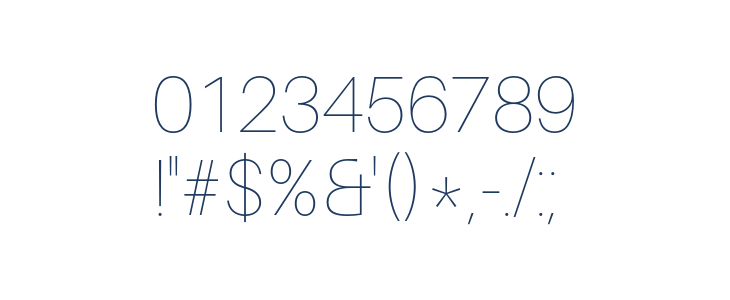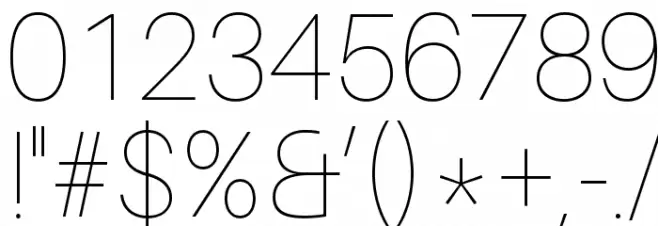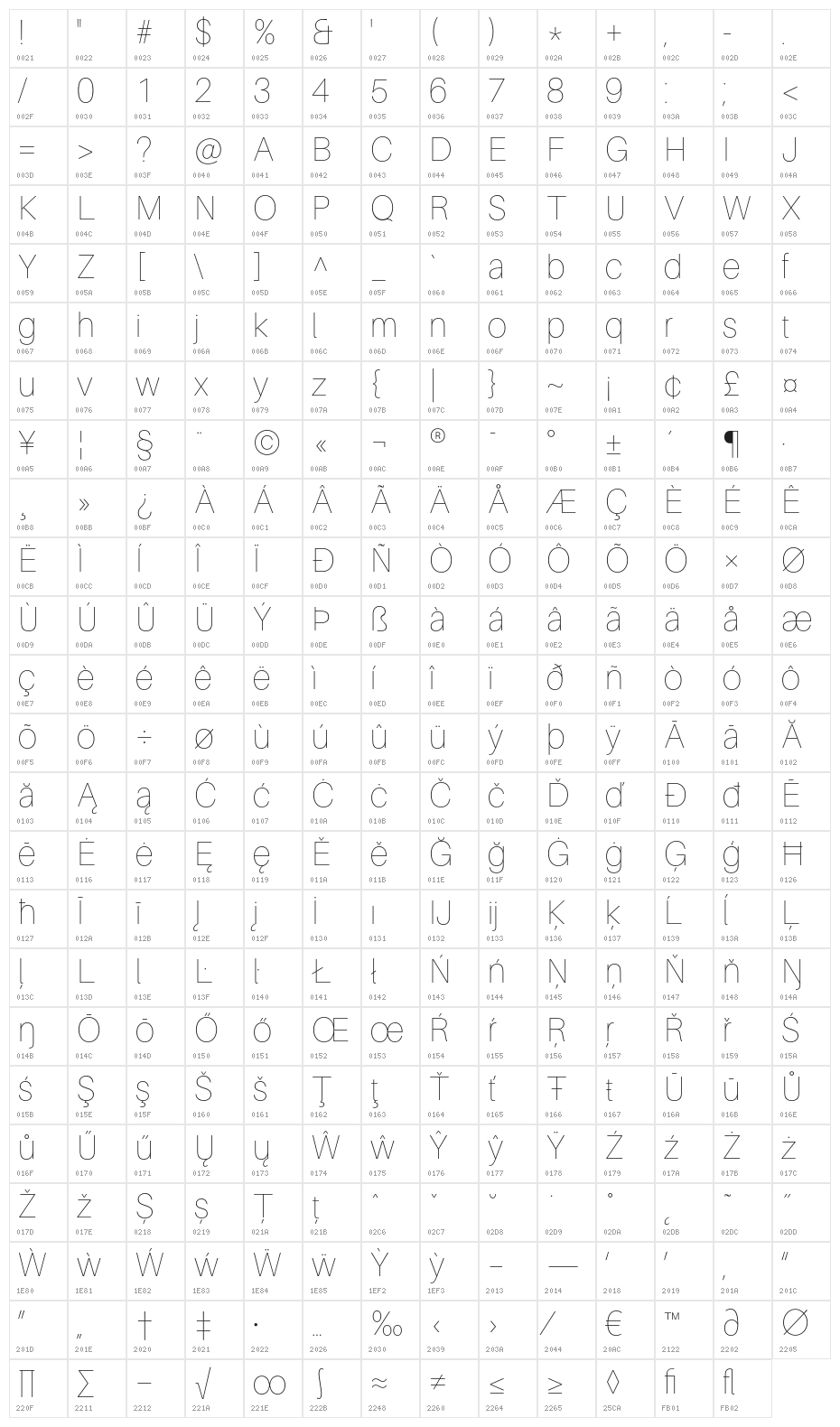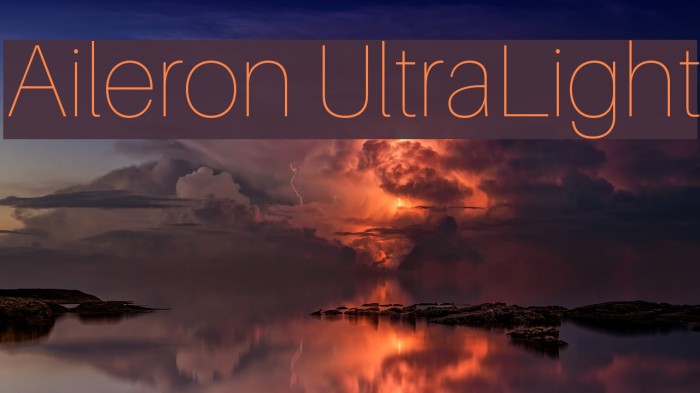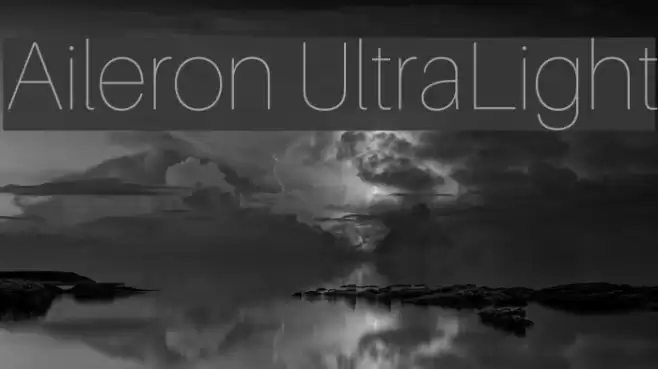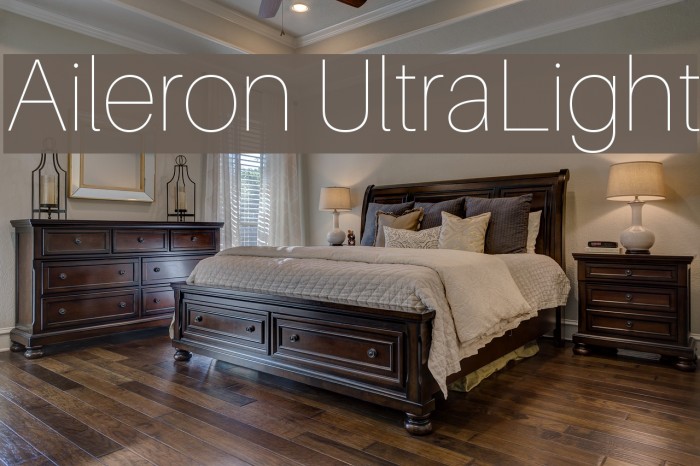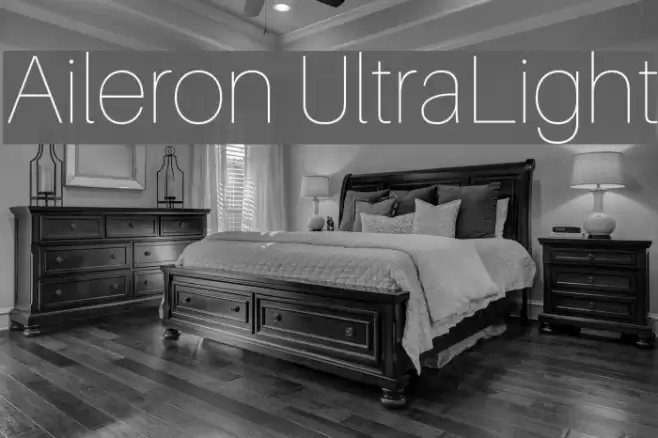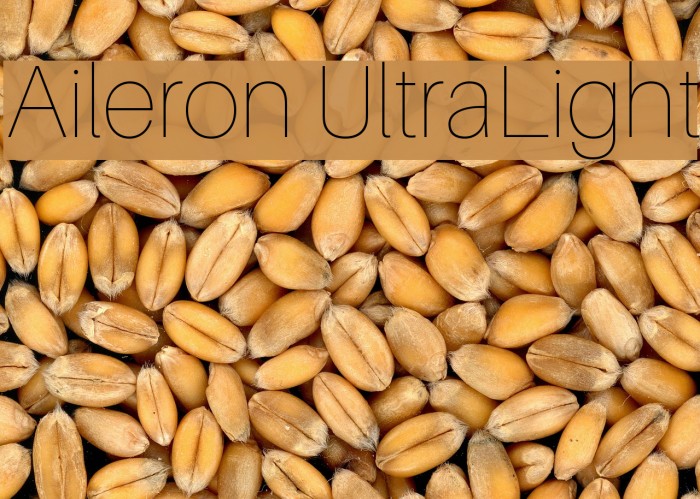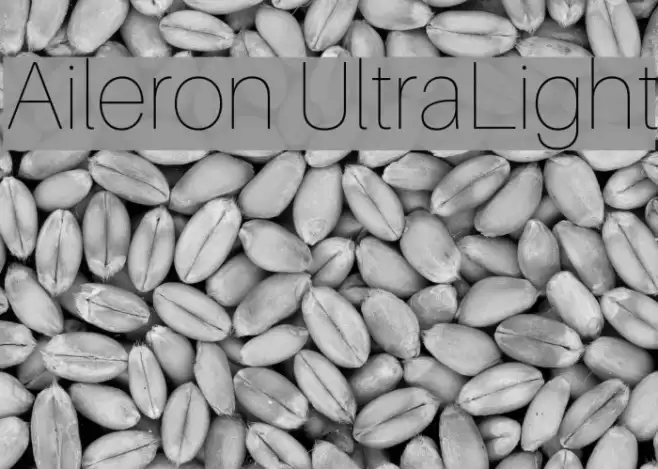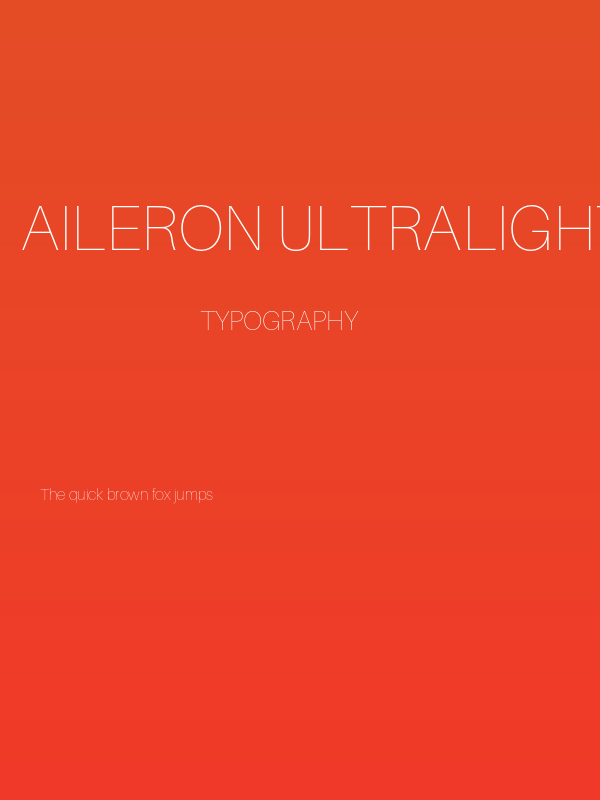
Aileron UltraLight Font
Aileron UltraLight Description
This font features a clean and minimalist design with ultra-light strokes, providing a modern and sophisticated appearance. The characters are evenly spaced, contributing to a balanced and harmonious look. The uppercase and lowercase letters maintain a consistent height, enhancing readability. The numerals and special characters are designed with the same attention to detail, ensuring uniformity across all glyphs. This font's simplicity and elegance make it versatile for various design applications, offering a contemporary aesthetic that is both stylish and functional.
| Proposed Projects | Ideal for branding, editorial design, websites, and minimalist graphic design projects. |